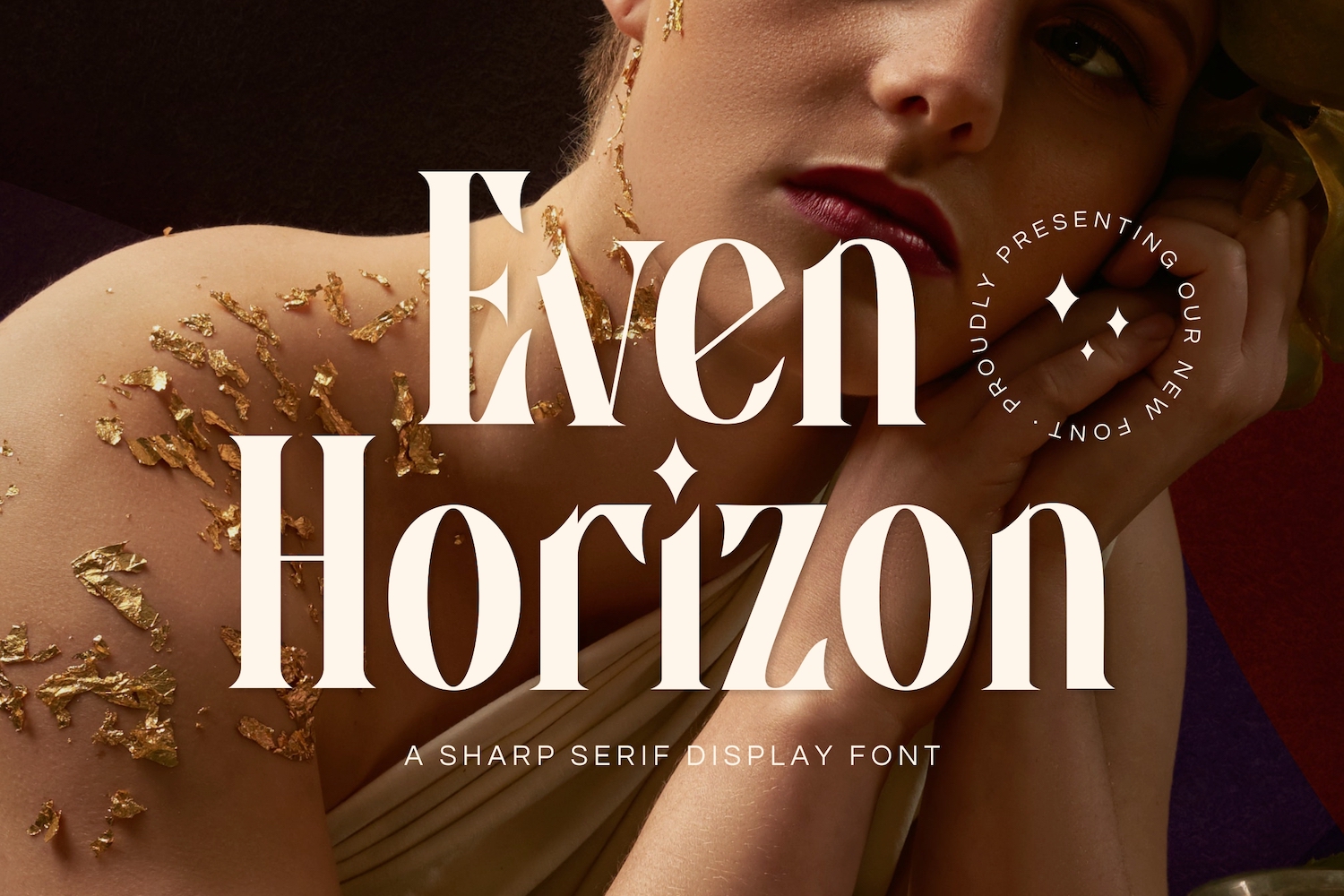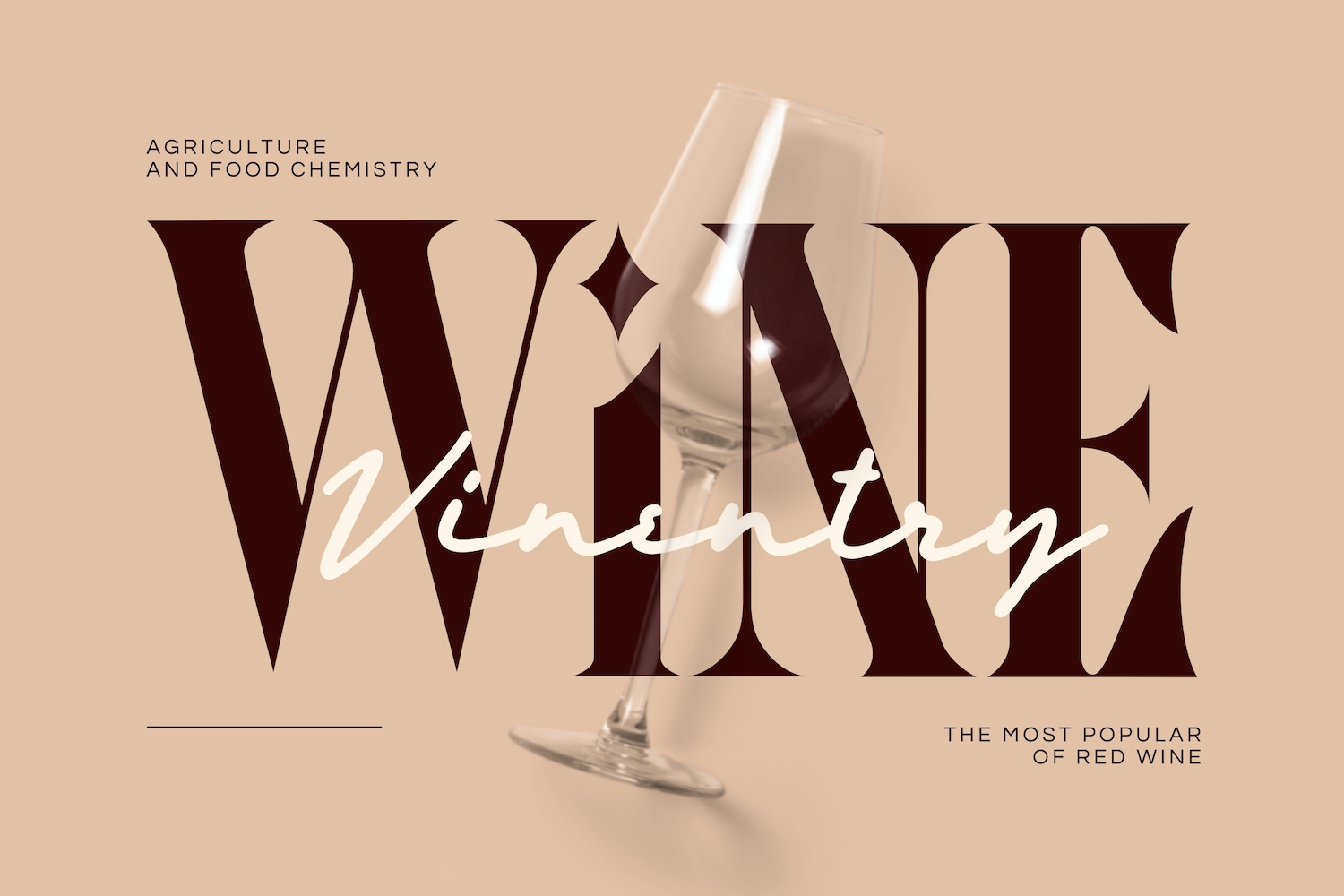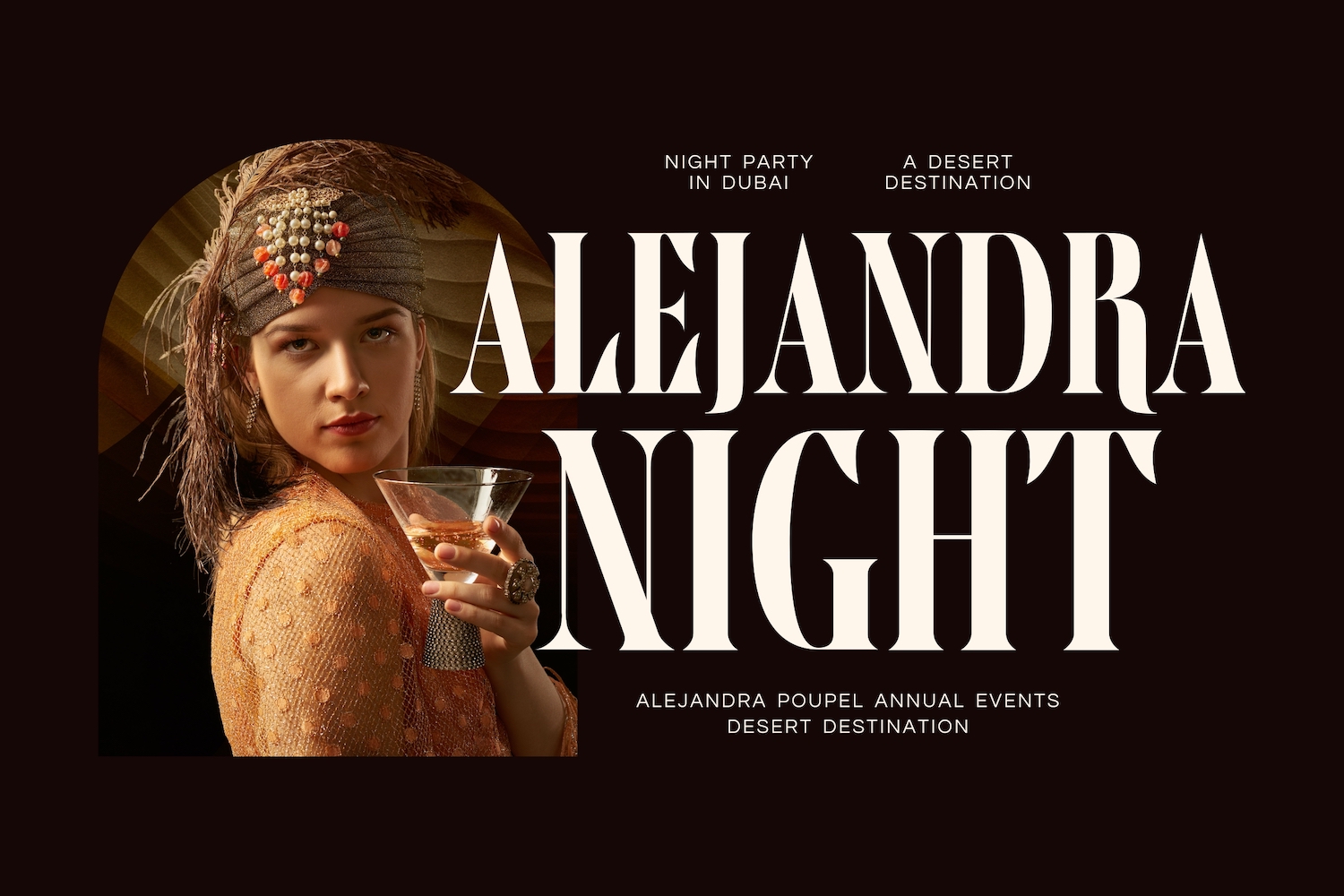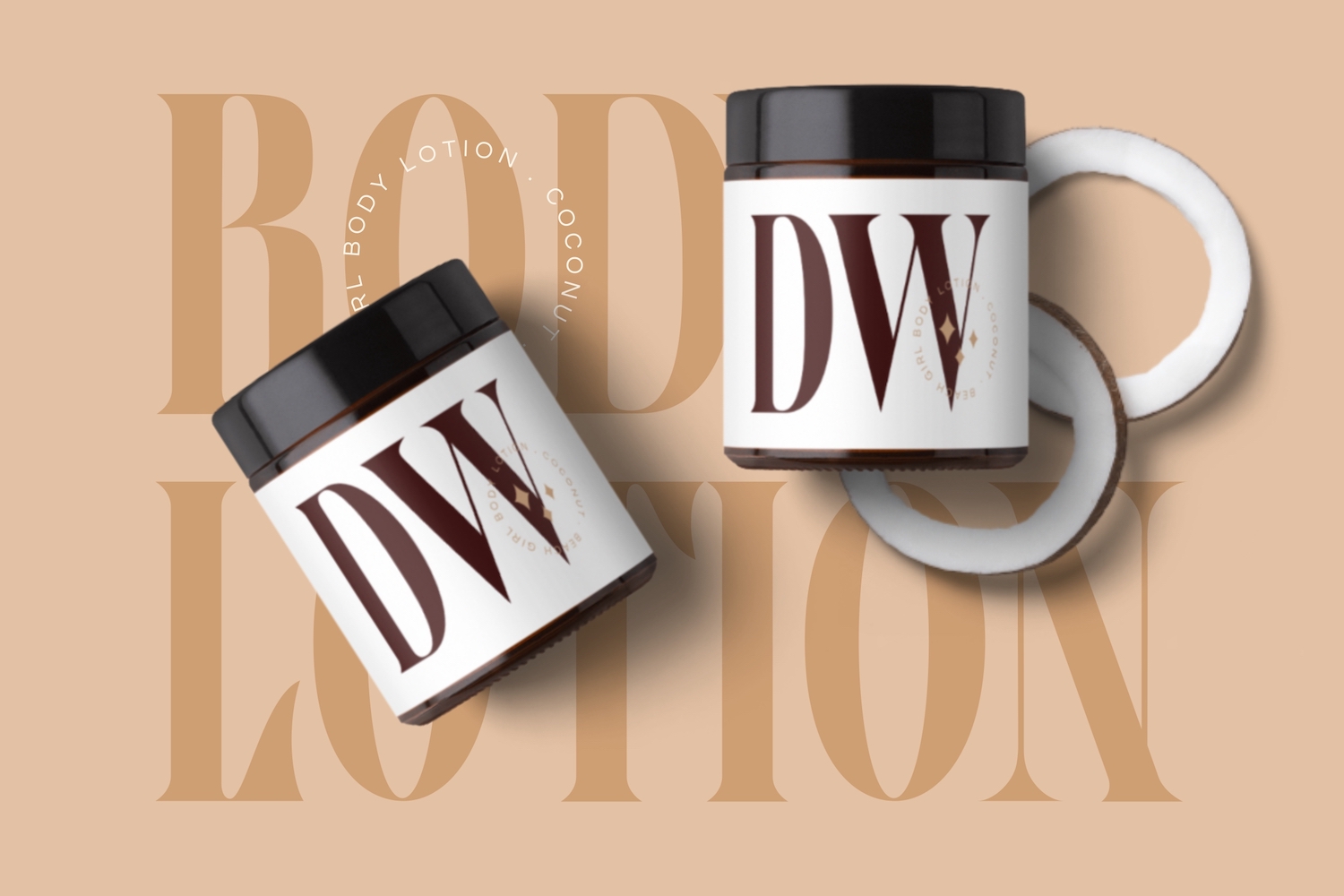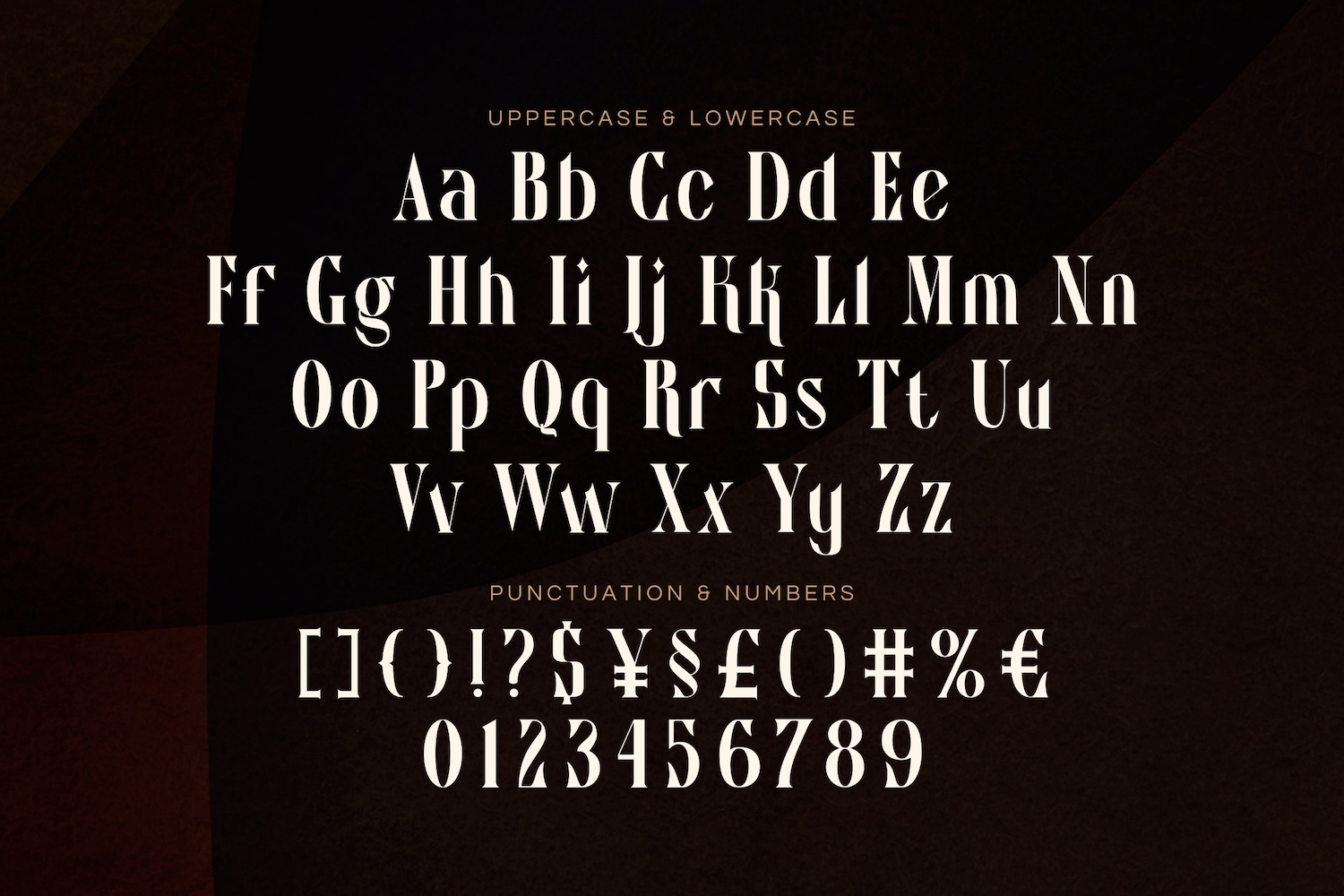
Even Horizon is a sharp, elegant serif display font designed with striking vertical contrast and dramatic curves. Its bold, sophisticated silhouette is perfect for editorial headlines, high-fashion branding, and luxury packaging. The pointed terminals and exaggerated serifs give the font a distinctive voice, while the overall composition maintains readability and visual impact.
Whether you’re crafting a brand identity, a modern wine label, or a beauty product campaign, Even Horizon delivers timeless sophistication with a hint of daring style. Its carefully balanced uppercase and lowercase set is complemented by a full range of numerals and punctuation, making it a versatile choice for both classic and contemporary design aesthetics.
Even Horizon